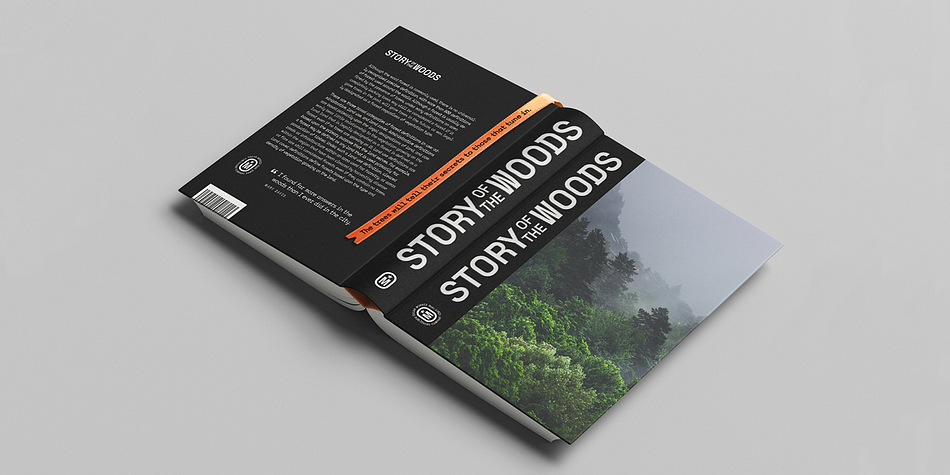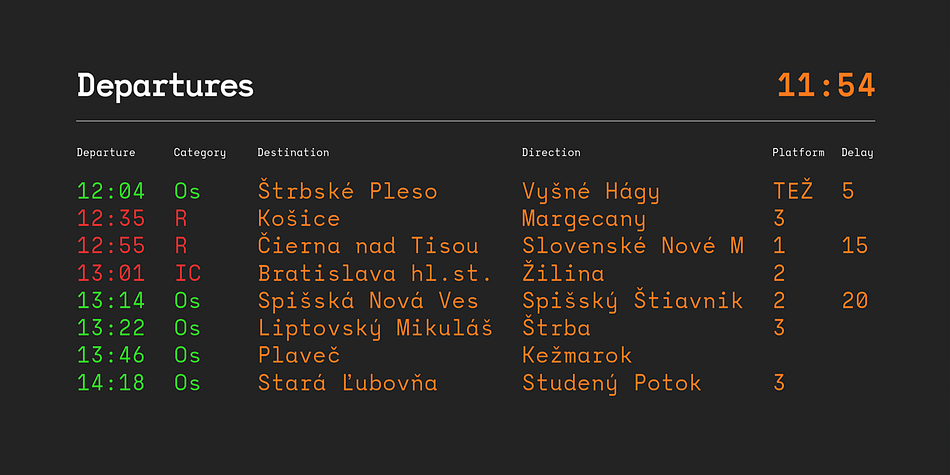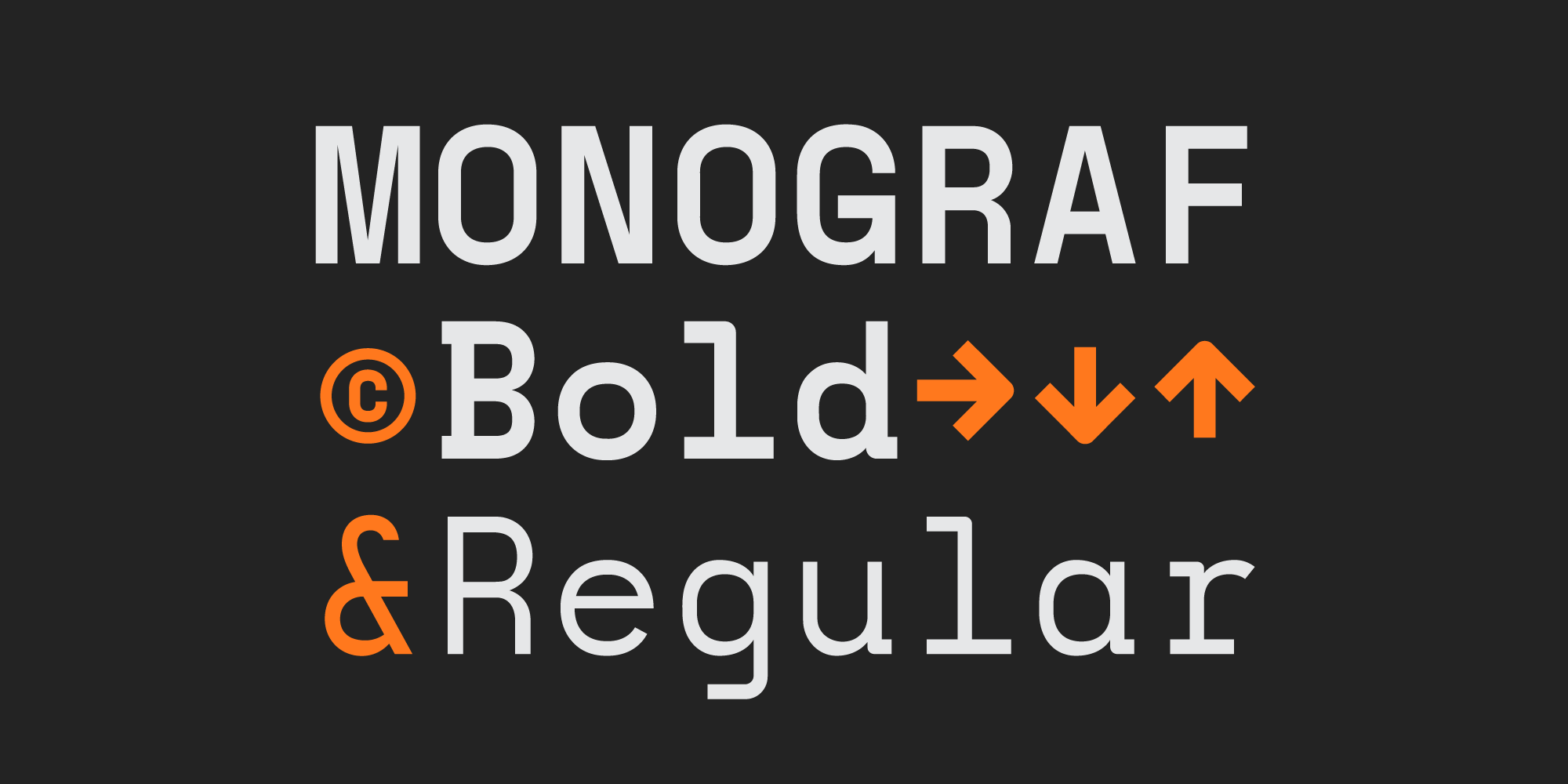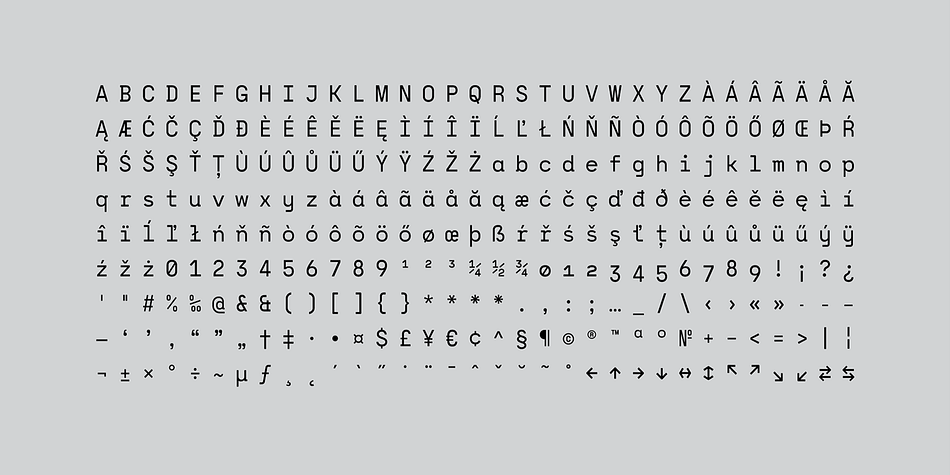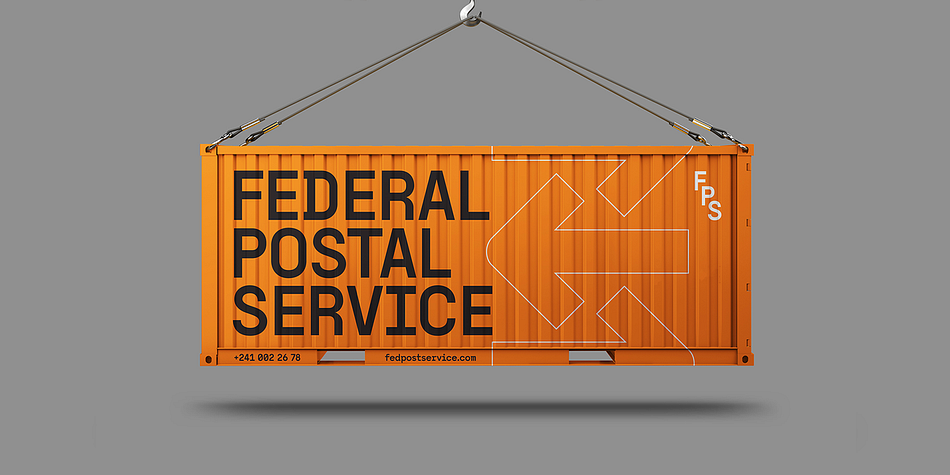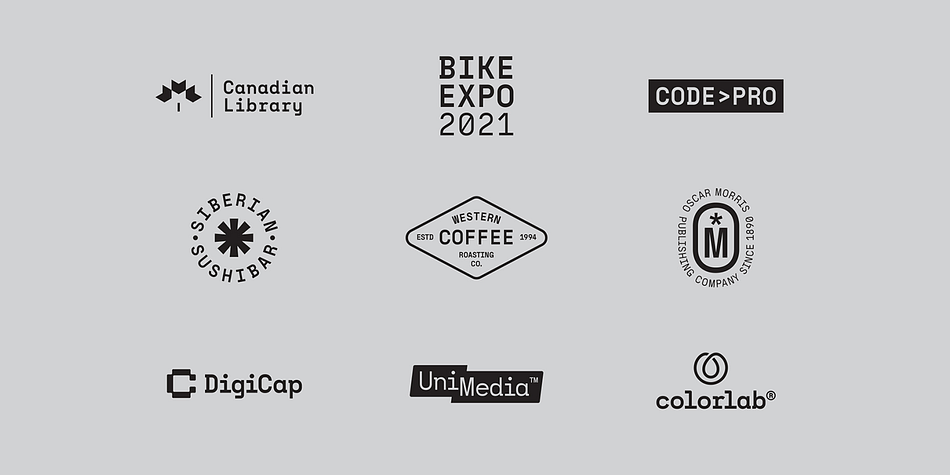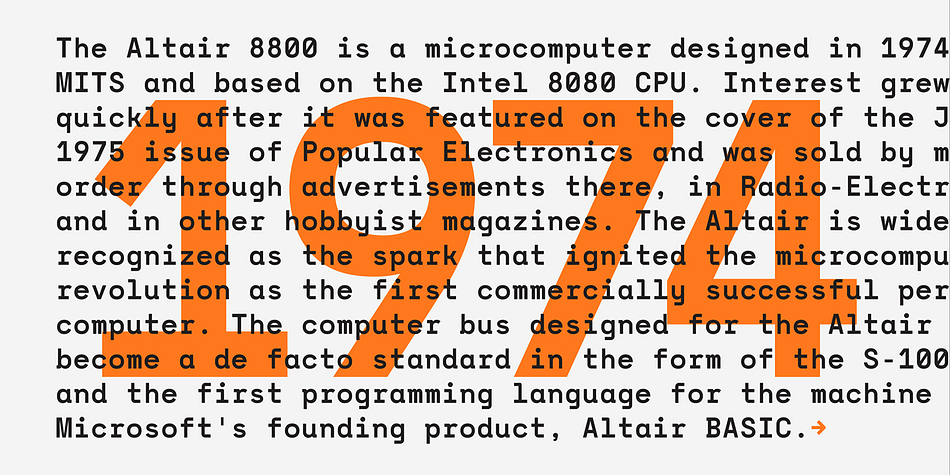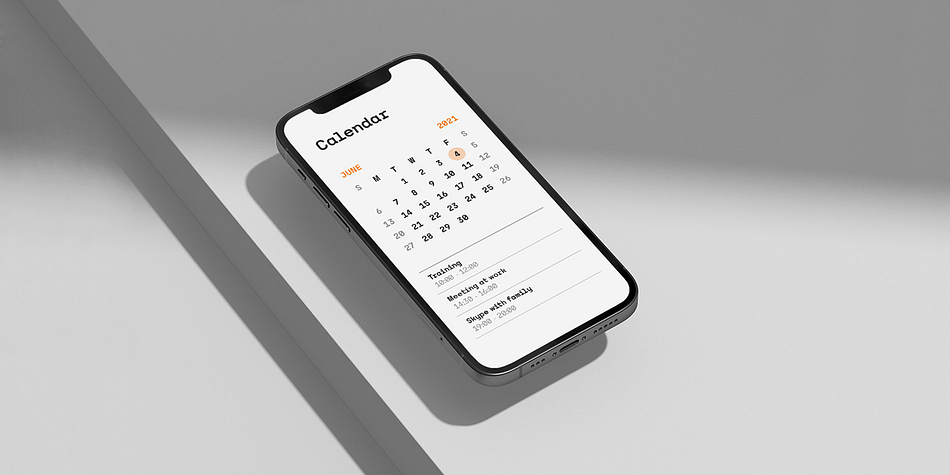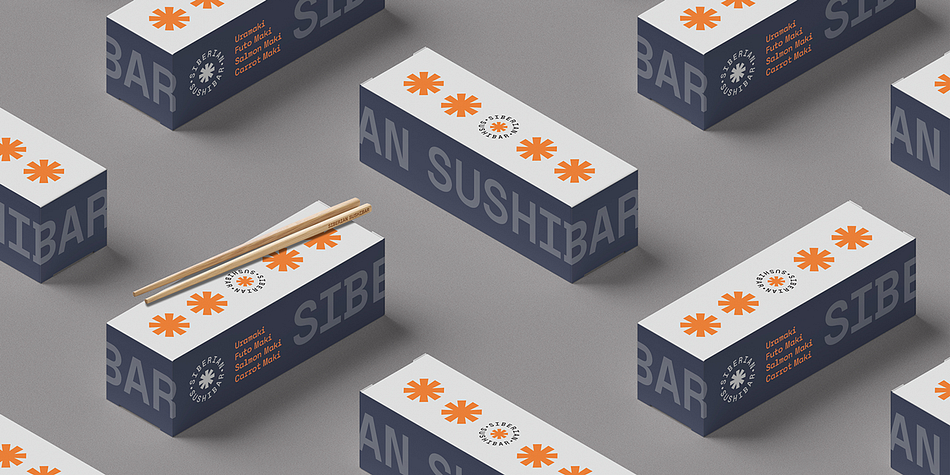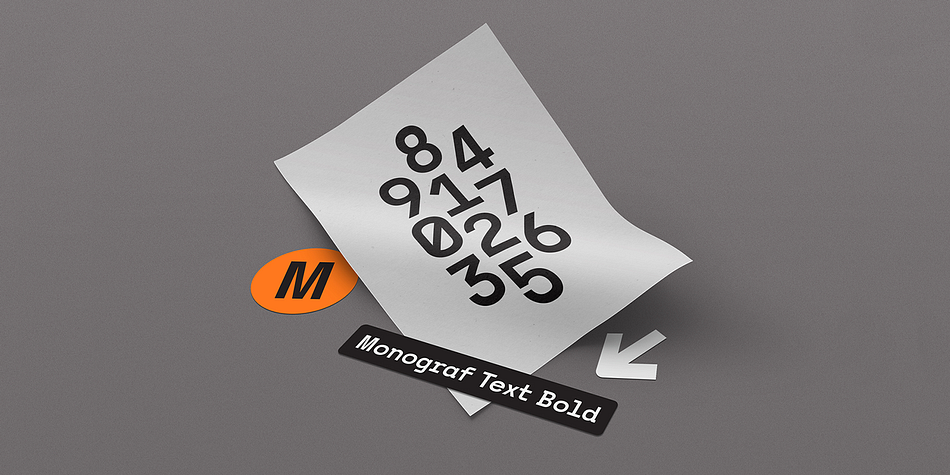
Monograf
Monograf is a serif font family. This typeface has four styles and was published by Milan Pleva.
Monograf was originally designed as fixed-width monospaced font which has 2 weights (Regular and Bold). Monograf Text is a derived style of Monograf with proportional spacing and well-balanced kerning to make the text easier to read and look optically balanced.
So in the total bundle you get 4 pieces of this font: Monograf Regular, Monograf Bold, Monograf Text Regular and Monograf Text Bold.
This versatile font with clean geometry and slightly rounded corner elements works great in digital space, as well in print. It also retains its legibility at smaller sizes. Typographic features include old-style figures, directional arrows and four types of asterisks. The entire font is suitable for purposes such as tabular layout, coding, website, but also for magazines, logos, signs, products, and others.
FEATURES:
Basic latin alphabet A-Z
116 Accented characters
Numbers, Punctuation, Currency, Symbols, Math symbols & Diacritics
Old style figures, Directional arrows and 4 asterisks
LANGUAGE SUPPORT:
Latin 1 + Latin 2